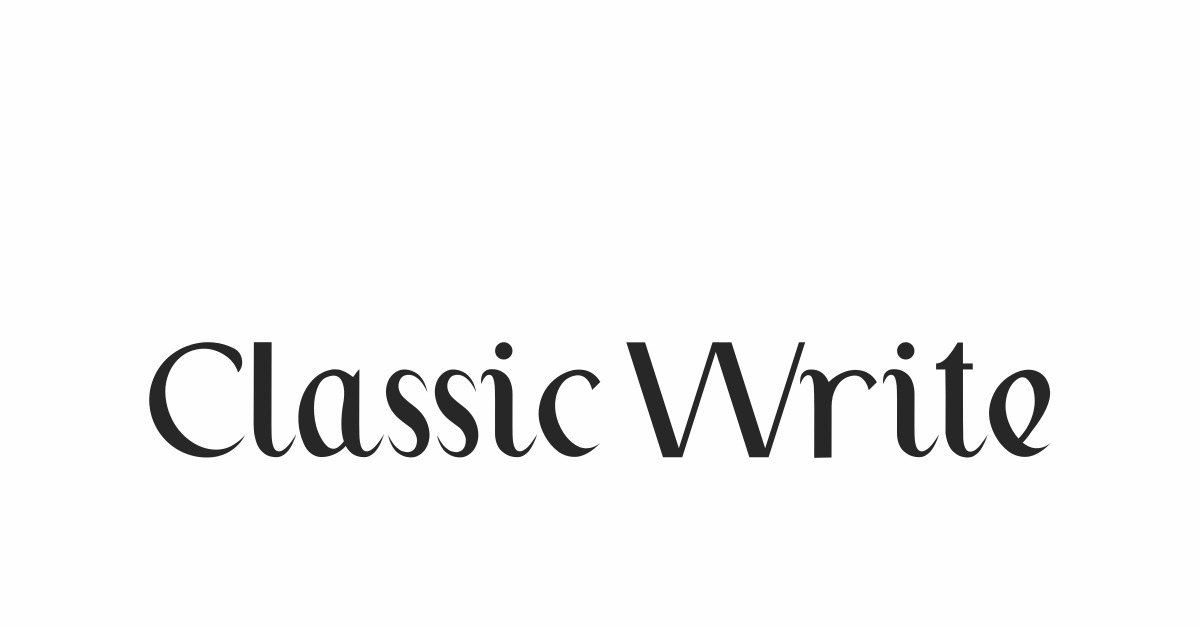
Classic Write Classy Stylish Display Font
Classic Write Font is a classy stylish display with sans serif style, created by NihStudio. This font has sophisticated on uppercase and has a pointed edge on lowercase and make it stand out. It’s perfect for many industries such as architect, boutique, cosmetic, craft, fashion, homeware, jewelry, perfume, publishing, real estate, and more!
Classic Write Font has two types of styles consist of Regular and Italic. It would be great for billboard, blog headers, business card, creating logo, magazine, mockup design, printed materials, product packaging, quote, etc. Perfectly crafted to create a stunning look and easy to read.